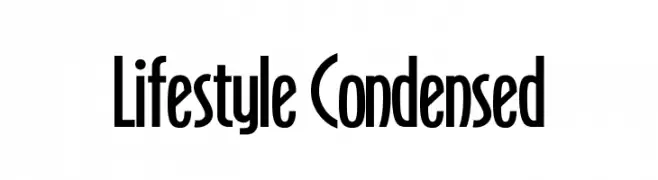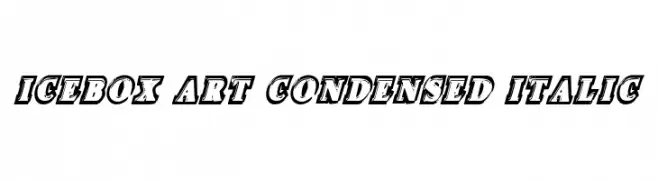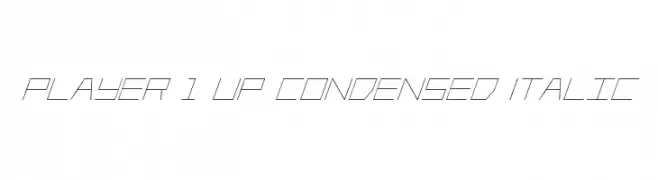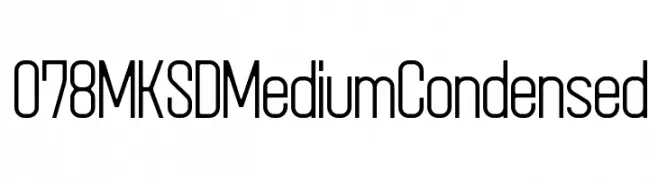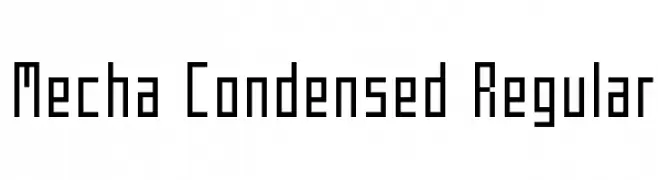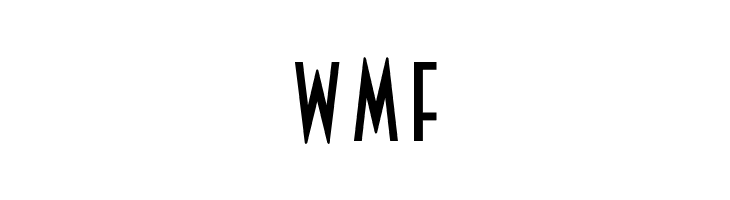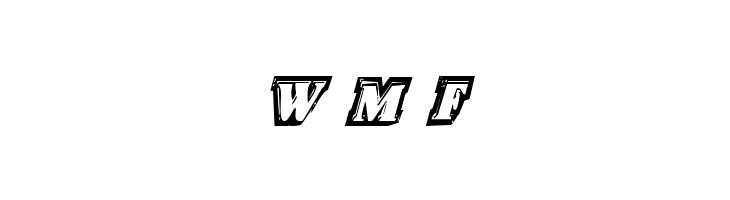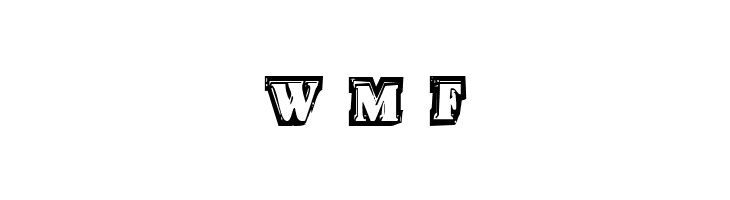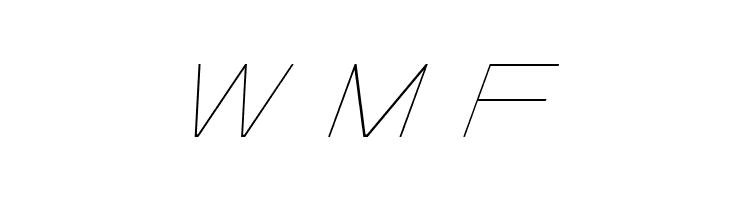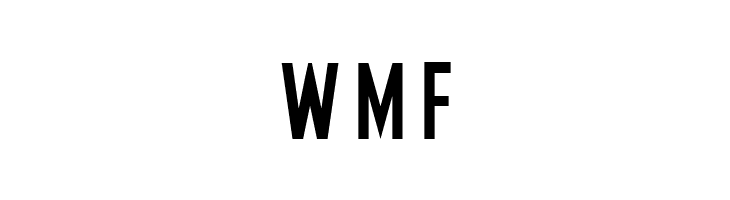
A bold, condensed font with a textured, distressed vintage style.
A sleek, modern condensed font with geometric elements and tight spacing.
A bold, condensed, italic font with a decorative outline and modern appeal.
A bold, condensed font with a 3D shadow effect, perfect for impactful designs.
A futuristic, geometric, and italicized font with a condensed form.
Bold, condensed font with thick strokes and narrow letterforms.
A modern, geometric sans-serif font with a condensed width and uniform stroke.